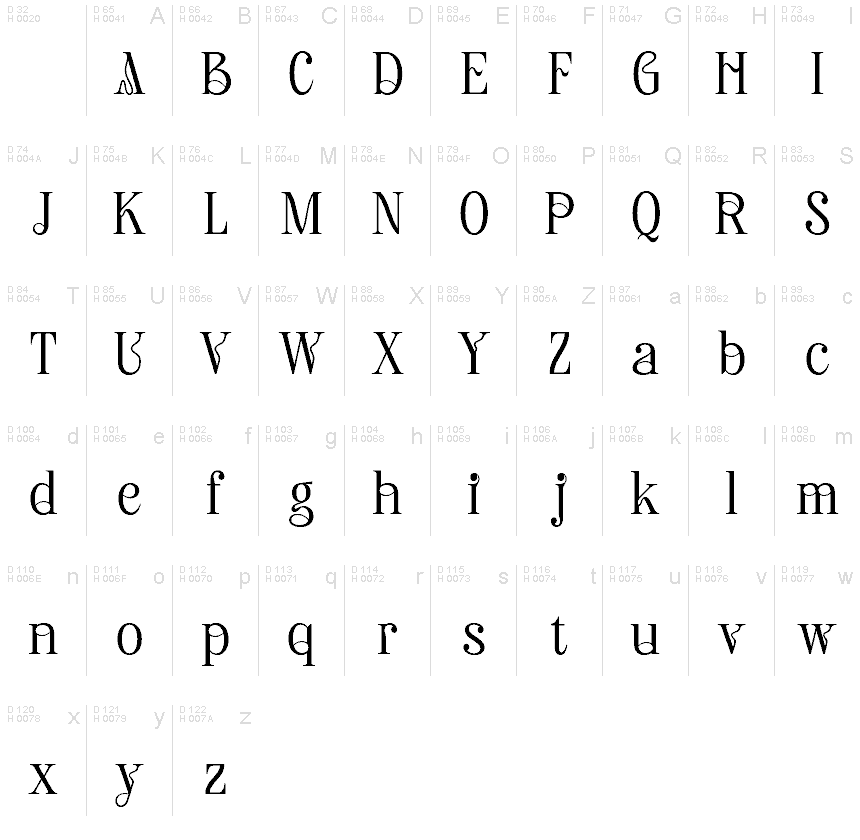
CS Arnade Regular Demo
CS Arnade font by Craft Supply Co. masterfully combines vintage serif style with contemporary design trends. Its sophisticated elegance is enhanced by artistic flair and modern serif influences, creating a striking yet professional appearance. The distinctive stylistic touches provide the font with character while still remaining versatile for various projects or brands.
Its timeless charm makes CS Arnade perfect for a logo, website header, branding materials, print ads, brochures, magazines, posters or street signs where visibility is key. It looks remarkable in invitations and handwritten letters also as restaurant menus or packaging.